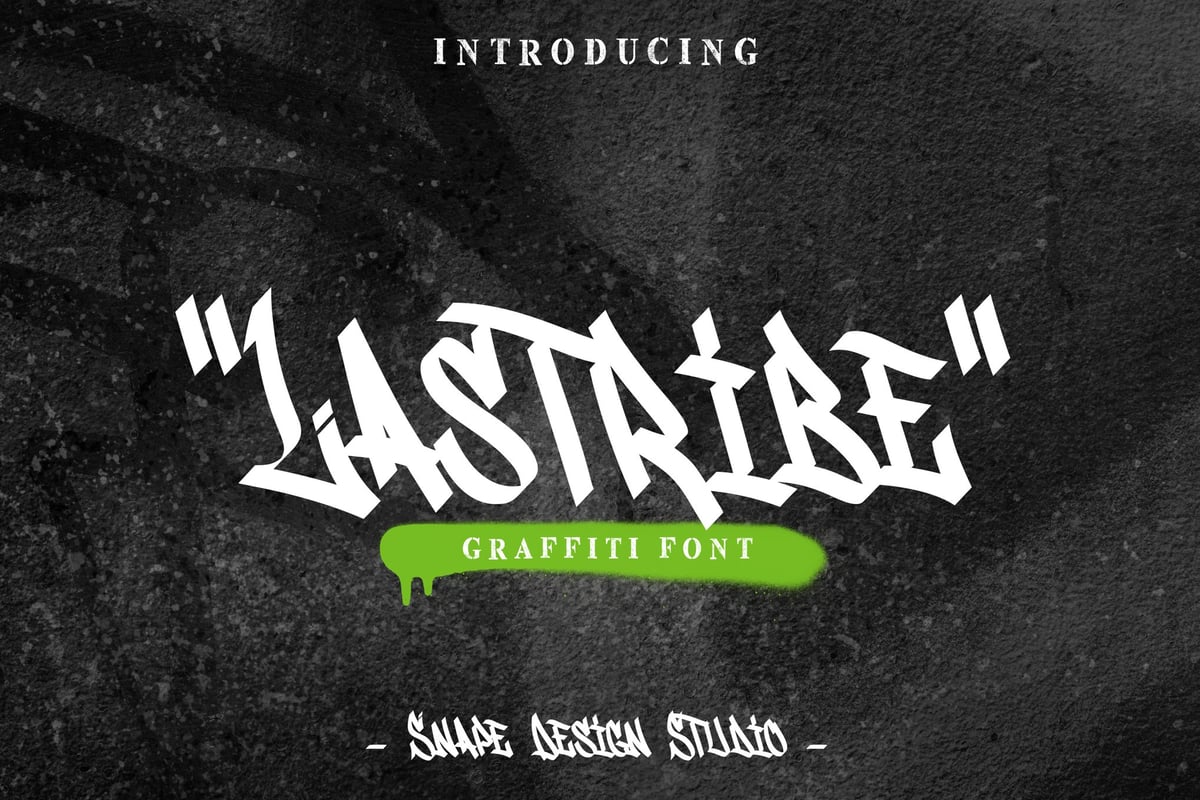
Lastribe - Graffiti Font
Transform your designs with authentic street art style using this bold graffiti-inspired display font. LASTRIBE captures the raw energy of typical street art calligraphy and graffiti tag styles, making it perfect for projects that need an edgy, urban aesthetic. This versatile typeface works exceptionally well for movies, documentaries, films, logos, posters, games, book covers, headlines, titles and countless other creative projects. Add LASTRIBE to your design toolkit and watch your creative id...